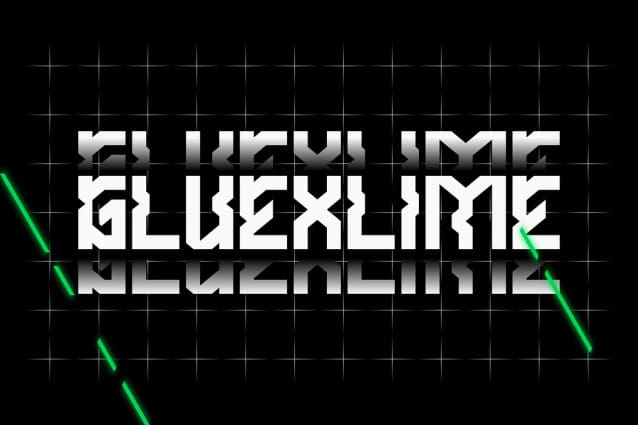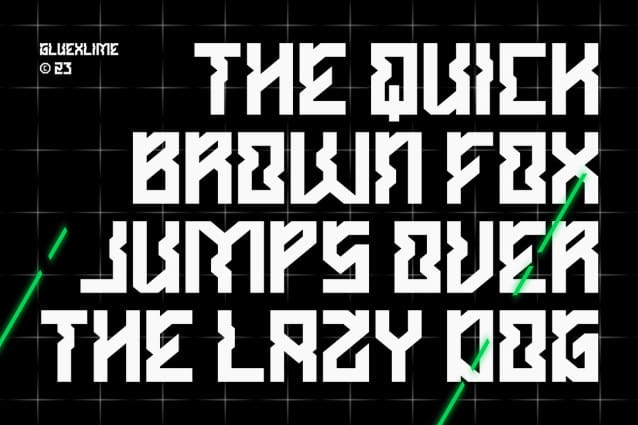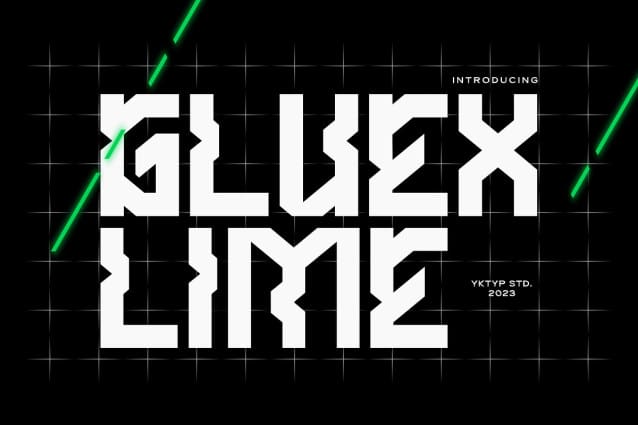
Gluexlime Display Font
Gluexlime Display Font: Bold futuristic style. This bold font is ideal for creating bold headlines, bringing creativity to modern letterforms. Brings a futuristic, creative feel to any text.